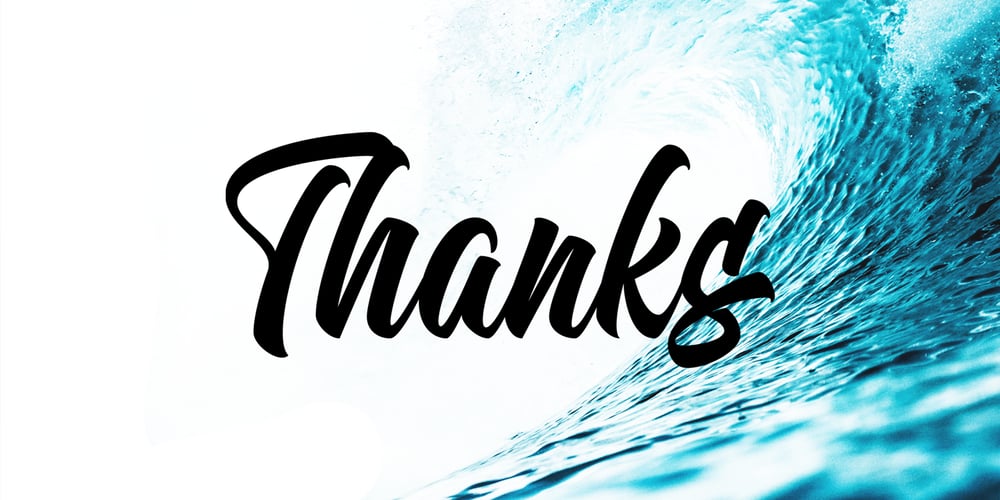
Orlande Font Family was designed by Bangkit Tri Setiadi and published by Blankids. Orlande contains 1 styles and family package options. Introducing a new script font called Orlande. Orlande was created with a brush pen. It comes with opentype features and multilingual support. Orlande is good for logotype, poster, badge, book cover, t-shirt design, packaging and any more. FEATURES : – Uppercase – Lowercase – Number – Punctuation – Multilingual – PUA Encode – Opentype